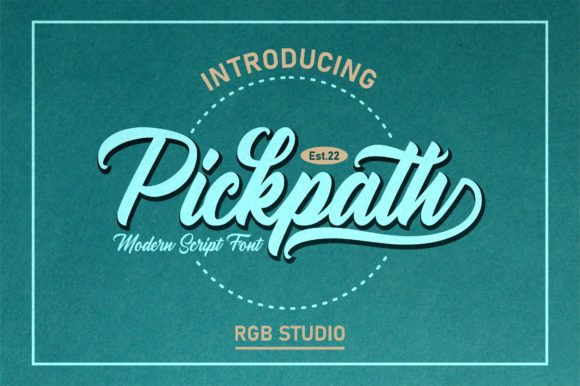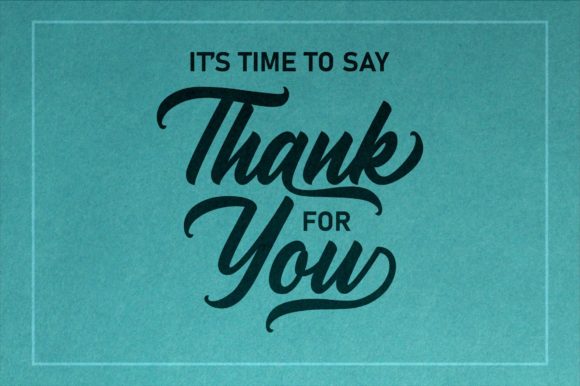
About Pickpath Font
“Pickpath” emerges as a stunning and bold handwritten font, meticulously crafted to infuse your headlines and logotype projects with a captivating retro flair. This font radiates strength, confidence, and dynamism, serving as a powerful tool to imbue your designs with a nostalgic charm that speaks volumes.
Visualize “Pickpath” as a brush that makes a bold statement on the canvas, leaving behind letters that resonate with a sense of boldness and flair. Its strong and confident nature adds a dynamic edge to your projects, transforming them into visual pieces that exude charisma and character. As you integrate this font into your creations, you’ll embark on a journey where your concepts evolve into captivating visual narratives.
Beyond its visual allure, “Pickpath” captures an essence of authenticity and creative expression. Its handwritten nature adds a personal touch, turning your designs into more than just visuals – they become powerful expressions of style and nostalgia.
“Pickpath” stands as a versatile companion in your design journey. Its adaptability ensures seamless harmony with various styles, themes, and intentions. Whether you’re reviving the essence of retro aesthetics in your headlines, infusing logotypes with bold character, or adding a touch of nostalgia to your projects, this font amplifies the resonance of your message.
In a world where design communicates through striking aesthetics and emotional resonance, “Pickpath” becomes your tool for crafting designs that evoke feelings and leave a lasting impact. Let its bold and retro-inspired strokes be the artistic touch that enhances your creations, infusing them with a sense of nostalgia and flair. Embrace the allure of “Pickpath” and witness as it transforms your projects into captivating showcases of artistic excellence, resonating deeply with all who engage with them.